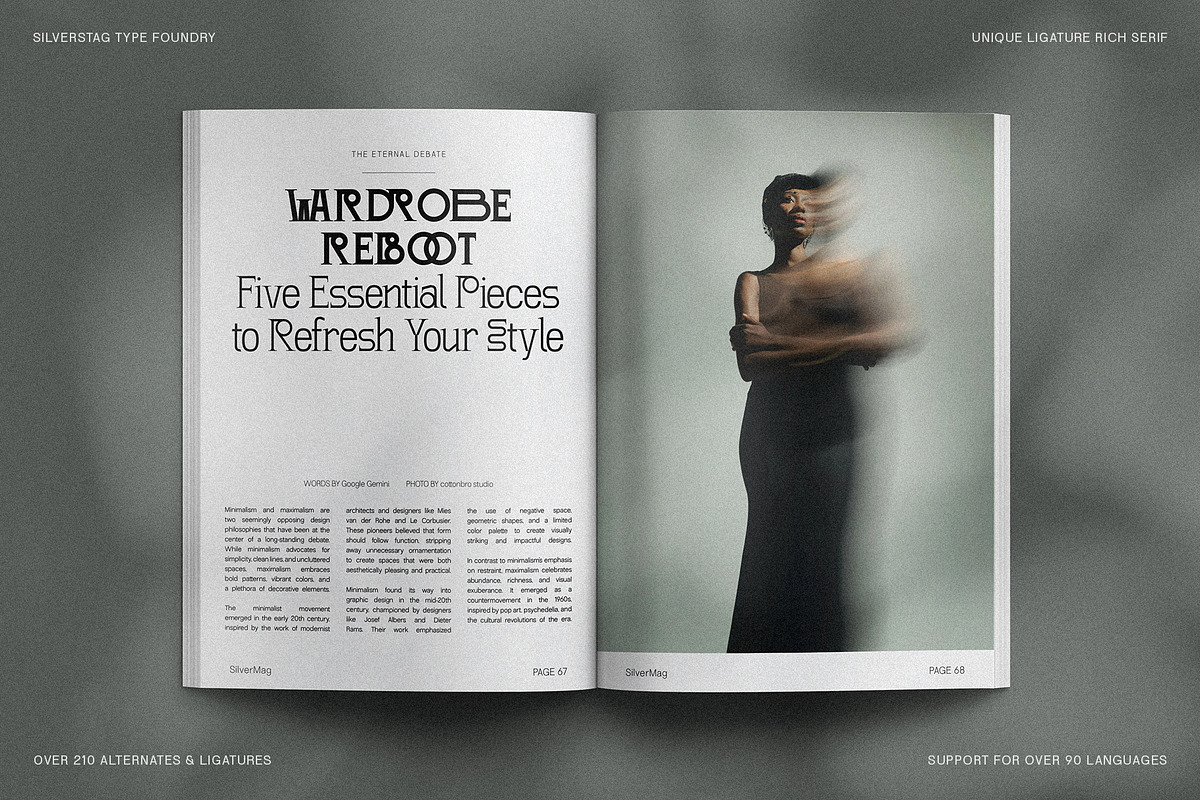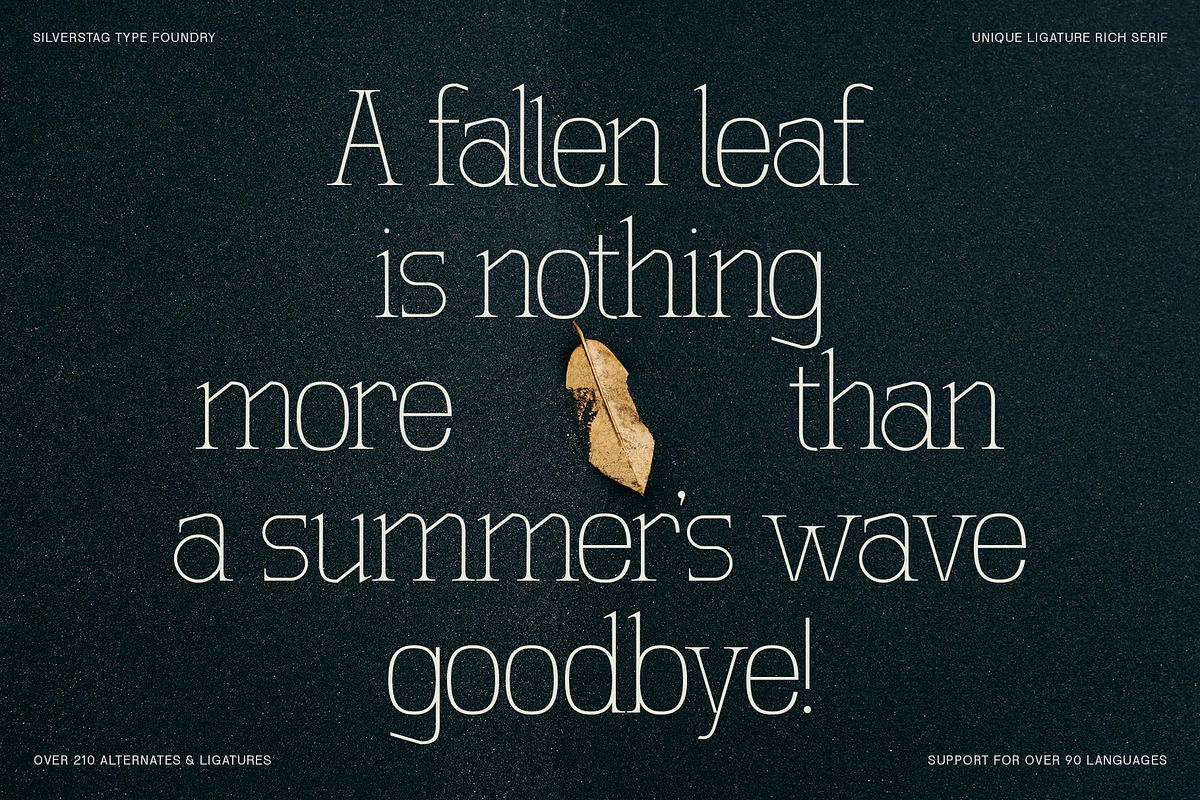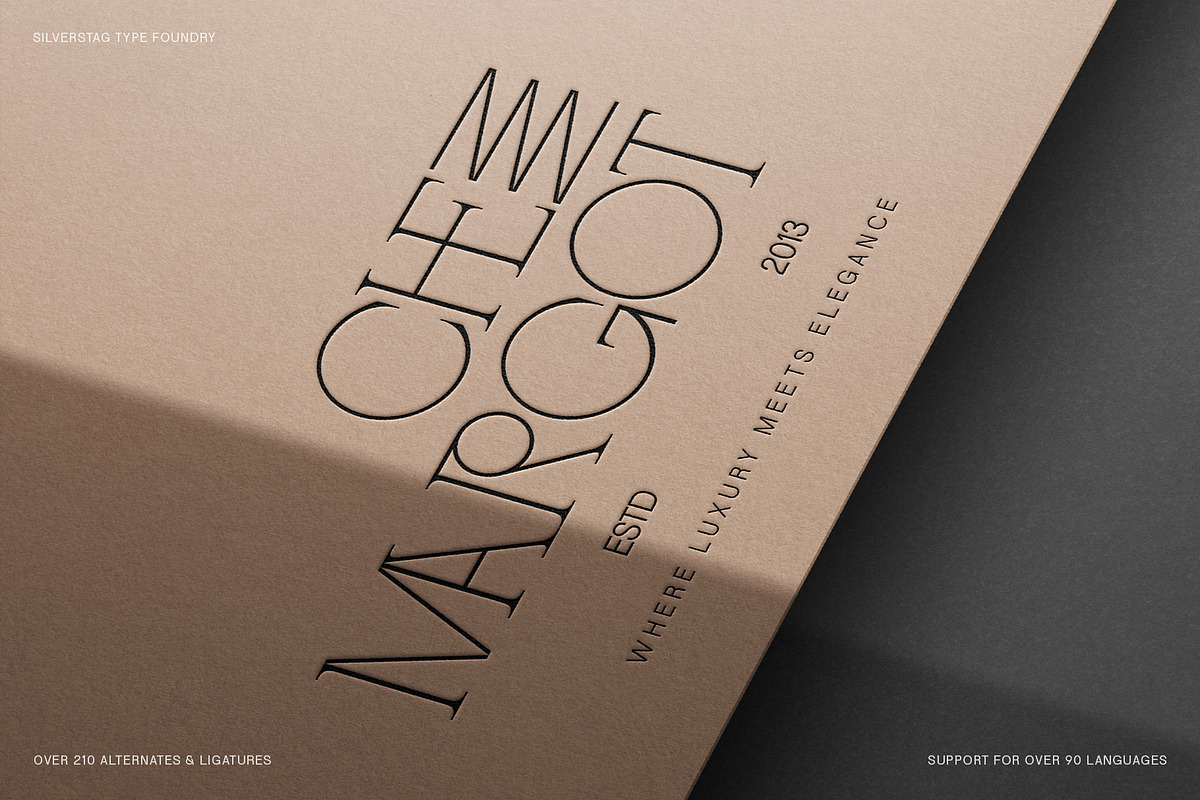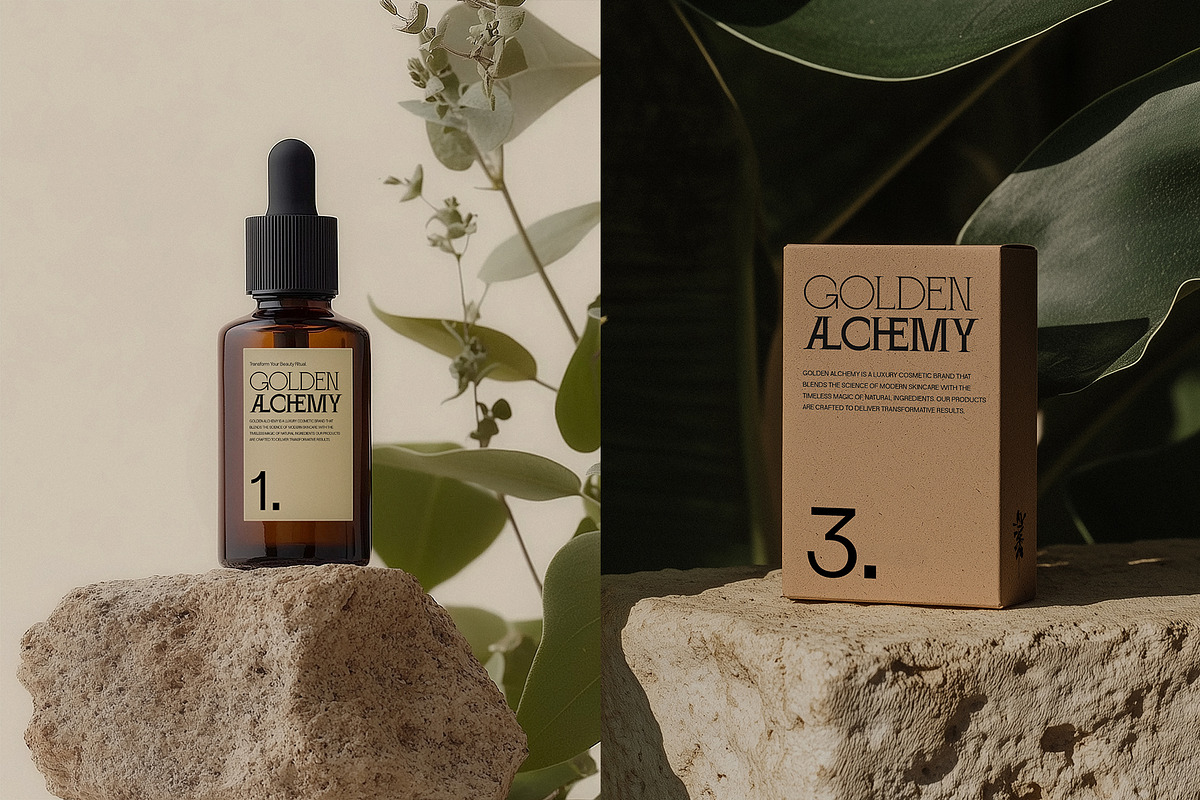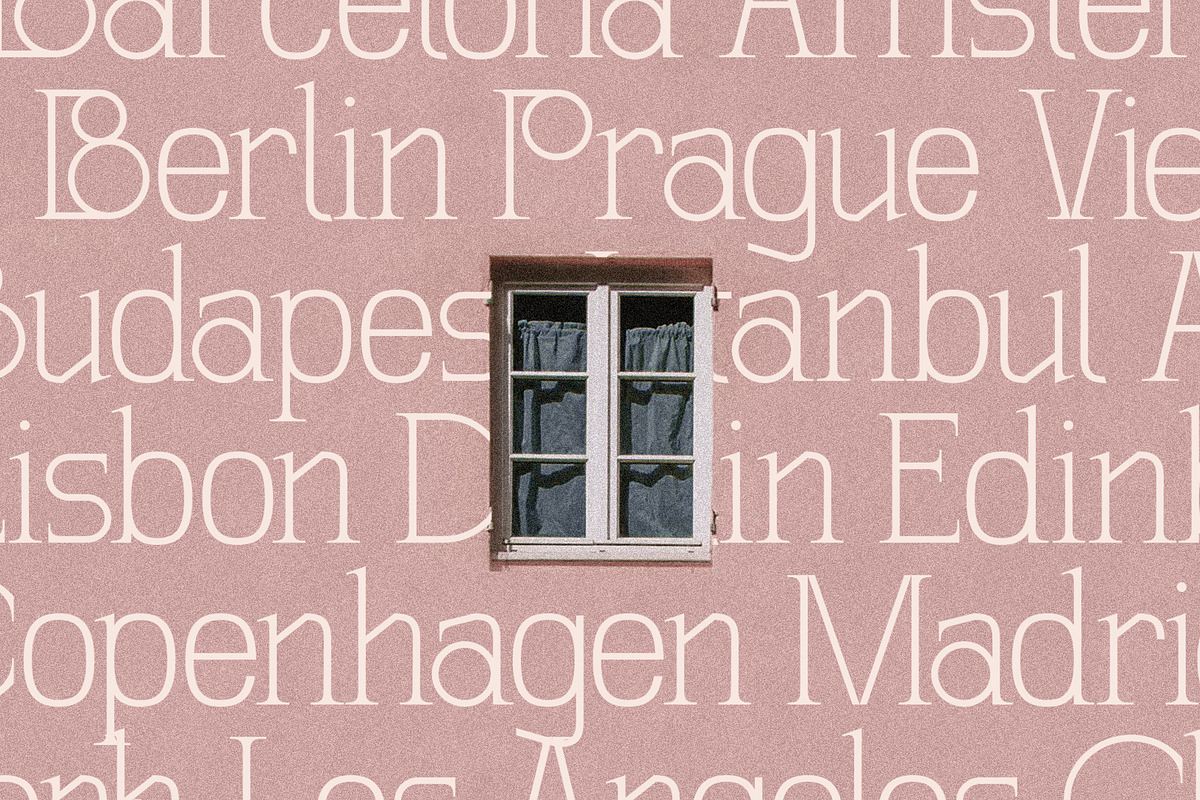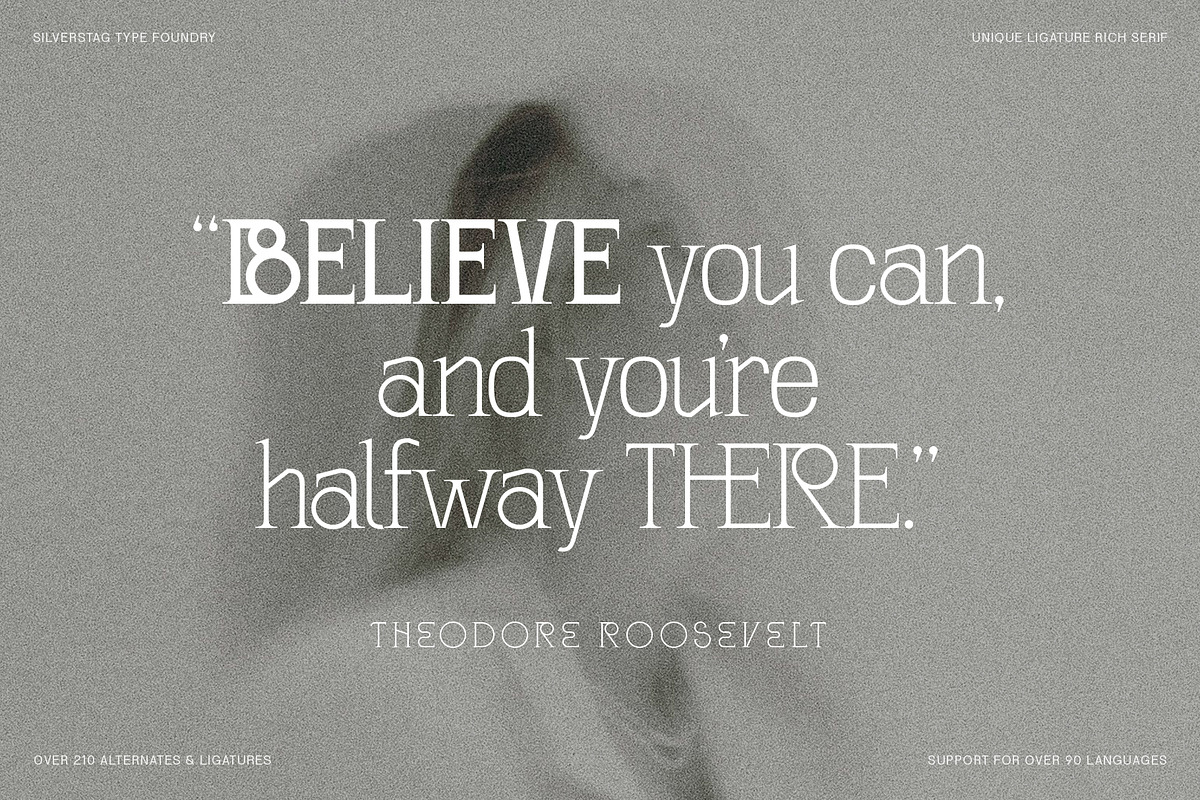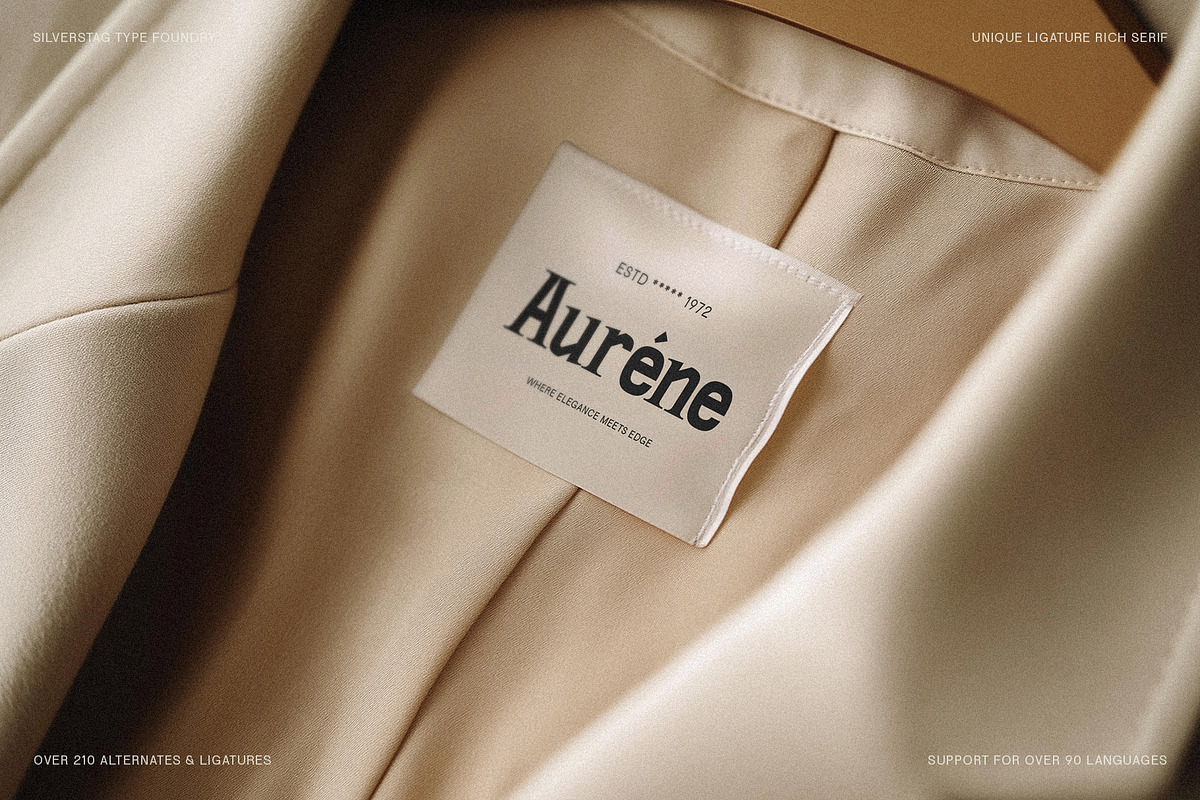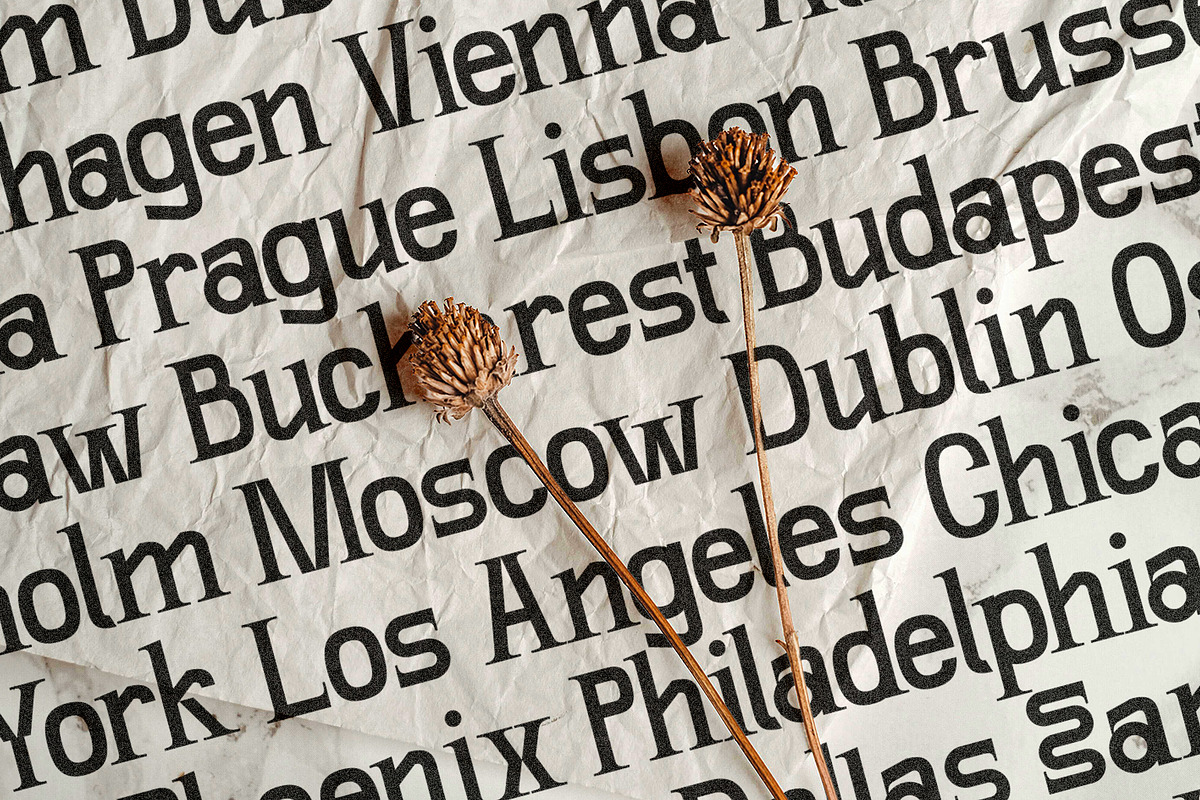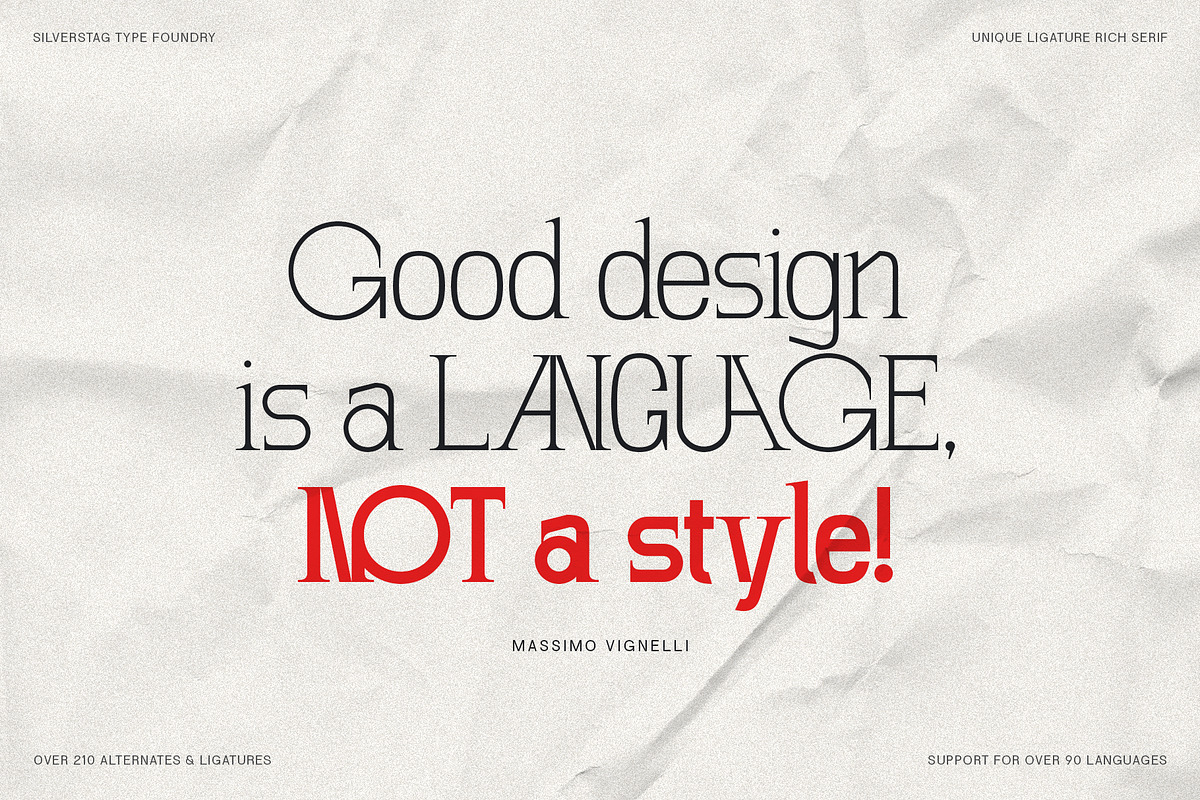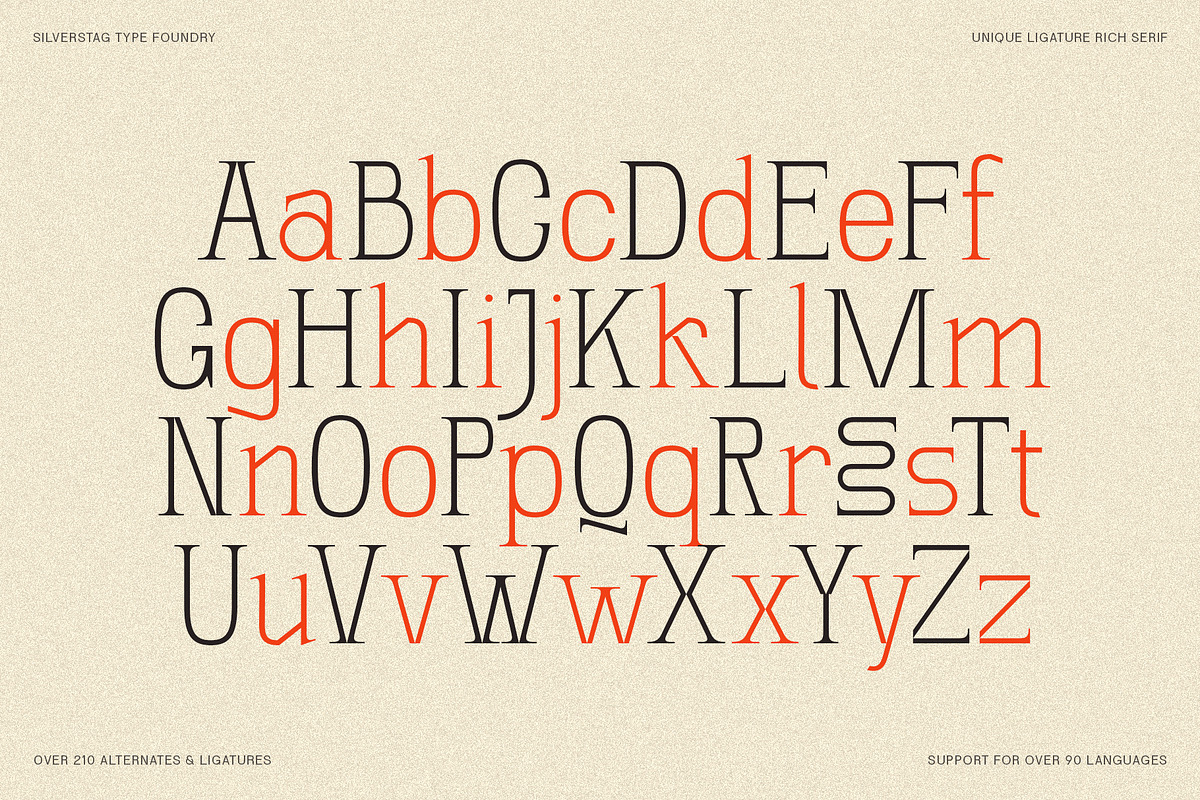
SLTF Winner Baroque - Ligature Serif
Introducing SLTF Winner Baroque, a sophisticated and versatile serif typeface designed to elevate your creative projects. This typeface is a harmonious blend of timeless baroque-inspired serifs and modern grotesk sans-serif influences, making it a one-of-a-kind addition to any designer’s toolkit. SLTF Winner Baroque is not just a font—it’s a bold statement of style, elegance, and functionality.
What Makes SLTF Winner Baroque Unique?
- Over 210 Alternates and Ligatures: Unlock endless possibilities for creative typography. The extensive selection of ligatures and alternates ensures that every project can have a unique and tailored look.
- Nine Weights: From Thin to Black, SLTF Winner Baroque offers a wide range of weights, allowing you to create stunning contrasts and versatile designs, whether for headlines, body text, or display purposes.
- Variable Font Included: Customize your typography effortlessly with the variable font version. Adjust weights and styles with precision to fit your project needs seamlessly.
- Extensive Language Support: With support for over 90 languages, this typeface is ideal for global projects, ensuring clear and impactful communication in multilingual designs.
- Baroque Meets Modern: Drawing inspiration from the intricate details of baroque serif typefaces and the clean lines of grotesk sans-serifs, SLTF Winner Baroque delivers a unique balance of tradition and modernity.
Perfect for These Applications:
- Editorial and Publishing: Ideal for magazine layouts, books, and digital publications where elegance and readability are key.
- Luxury Branding and Logos: Elevate your brand identity with a typeface that exudes sophistication and class.
- High-End Packaging: From cosmetics to gourmet foods, SLTF Winner Baroque adds a touch of refinement to product packaging.
- Posters and Marketing Materials: Make a bold statement in promotional designs with this visually striking font.
- Web and Digital Designs: Enhance your websites, apps, and digital products with a typeface that stands out on any screen.
Why Choose SLTF Winner Baroque?
SLTF Winner Baroque isn’t just another serif font—it’s a design powerhouse. With its rich alternates and ligatures, extensive weights, and variable font technology, it adapts to any design need, offering both creative freedom and professional precision. Whether you’re working on high-end branding, luxurious packaging, or captivating editorial layouts, this typeface ensures your work stands out.
Optimized for global use with multilingual support, SLTF Winner Baroque ensures your designs communicate effectively across diverse audiences. With its modern and timeless appeal, this typeface caters to a variety of industries, including fashion, design, publishing, and luxury goods, making it a highly searched choice for professional designers.